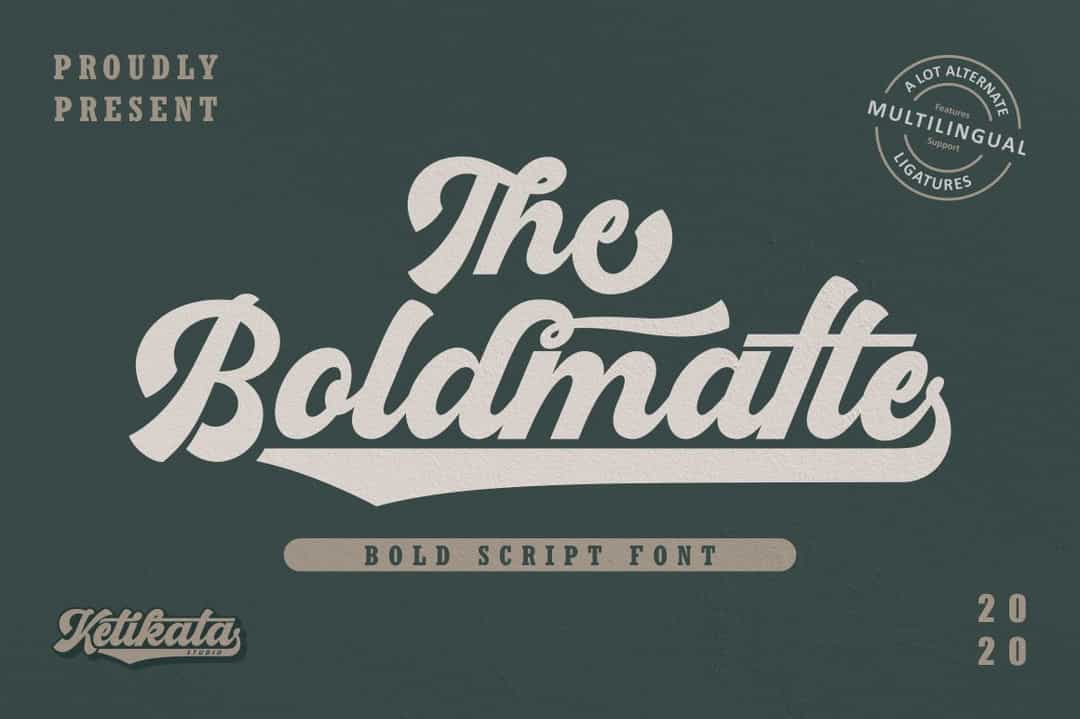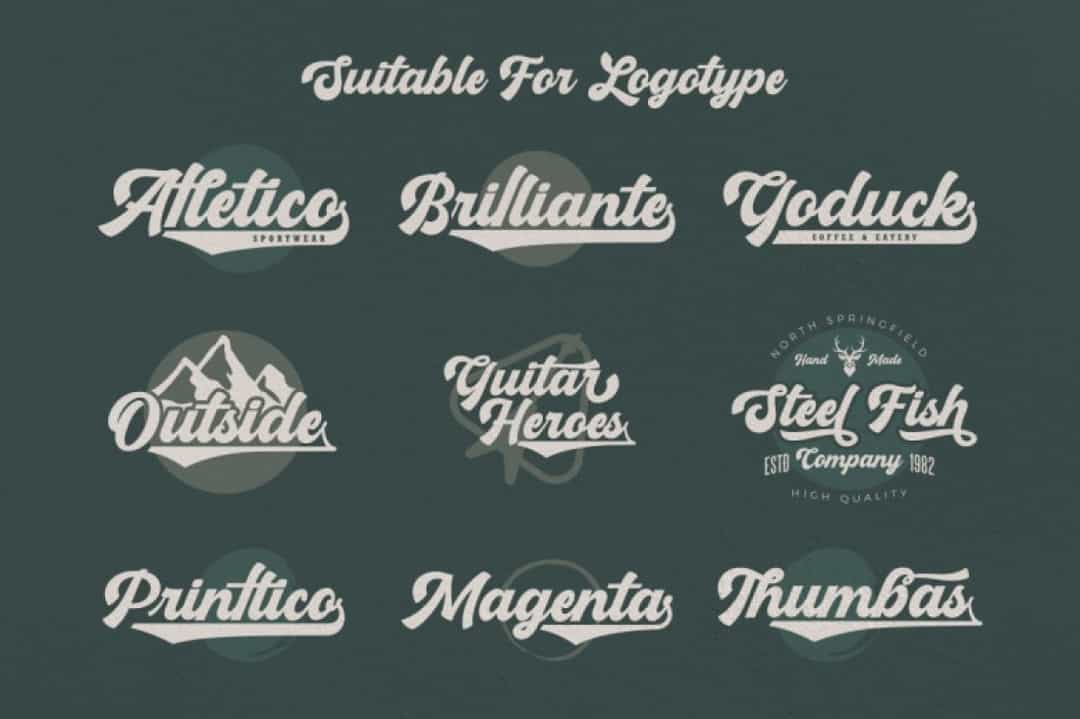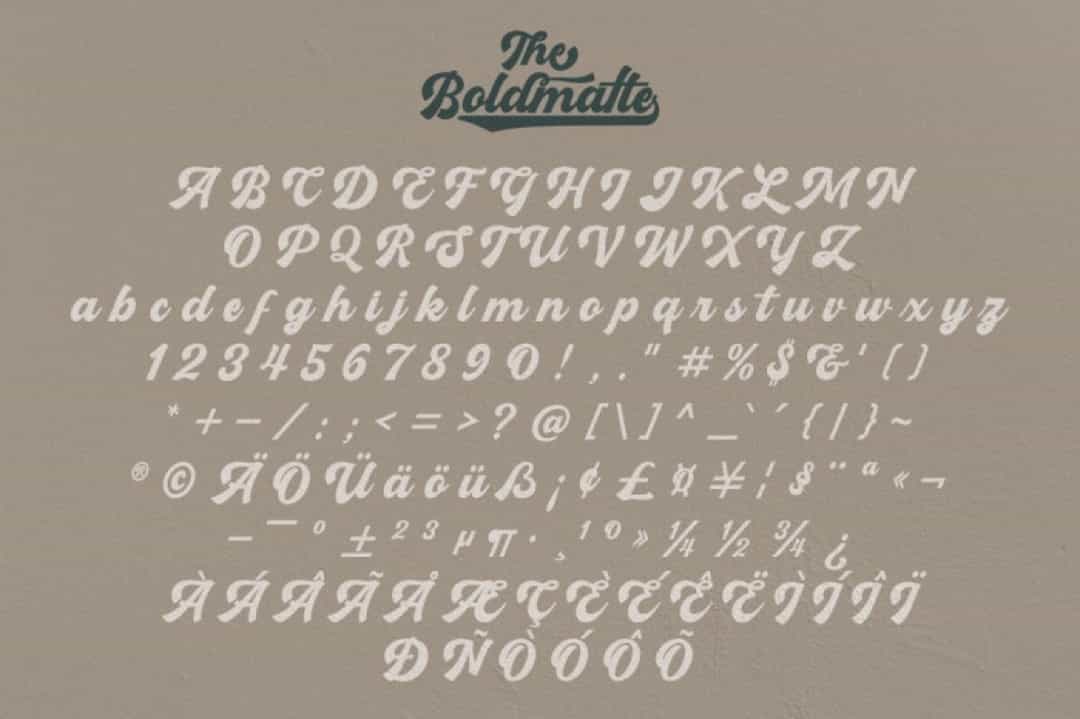
Boldmatte is an elegant and classic bold script font, boasting elegant serifs at the beginning of strokes, formal design elements and swash capitals. Boldmatte makes an ideal alternative to characters, swashes and 50 ligatures – and also boasts numerous tails of different widths and shapes to give your designs vintage logotype or sports-inspired appearance.